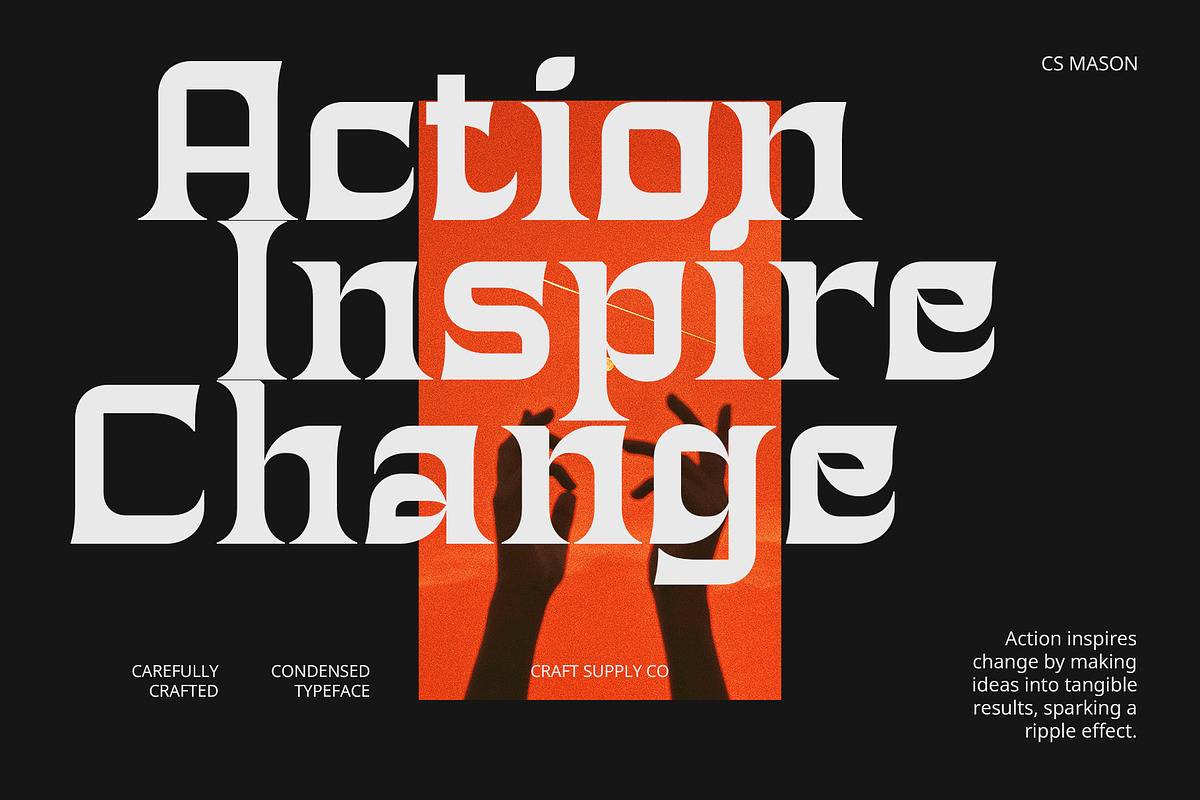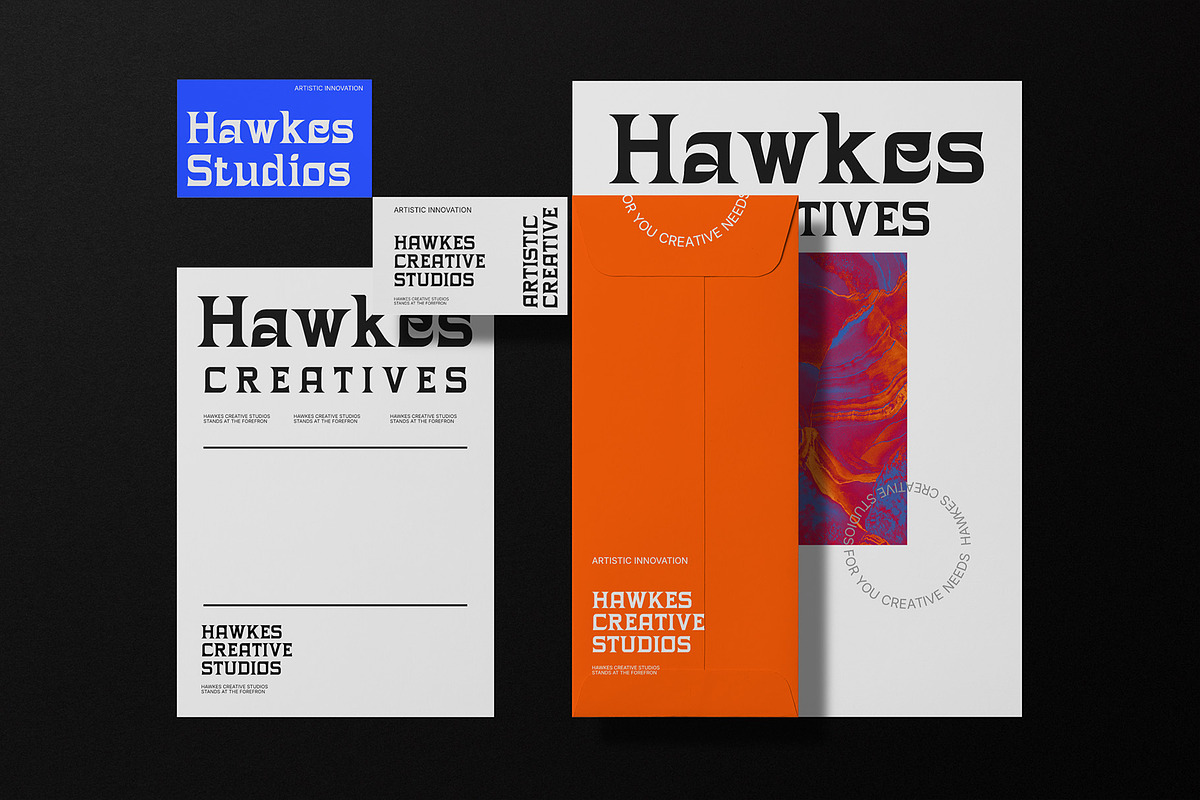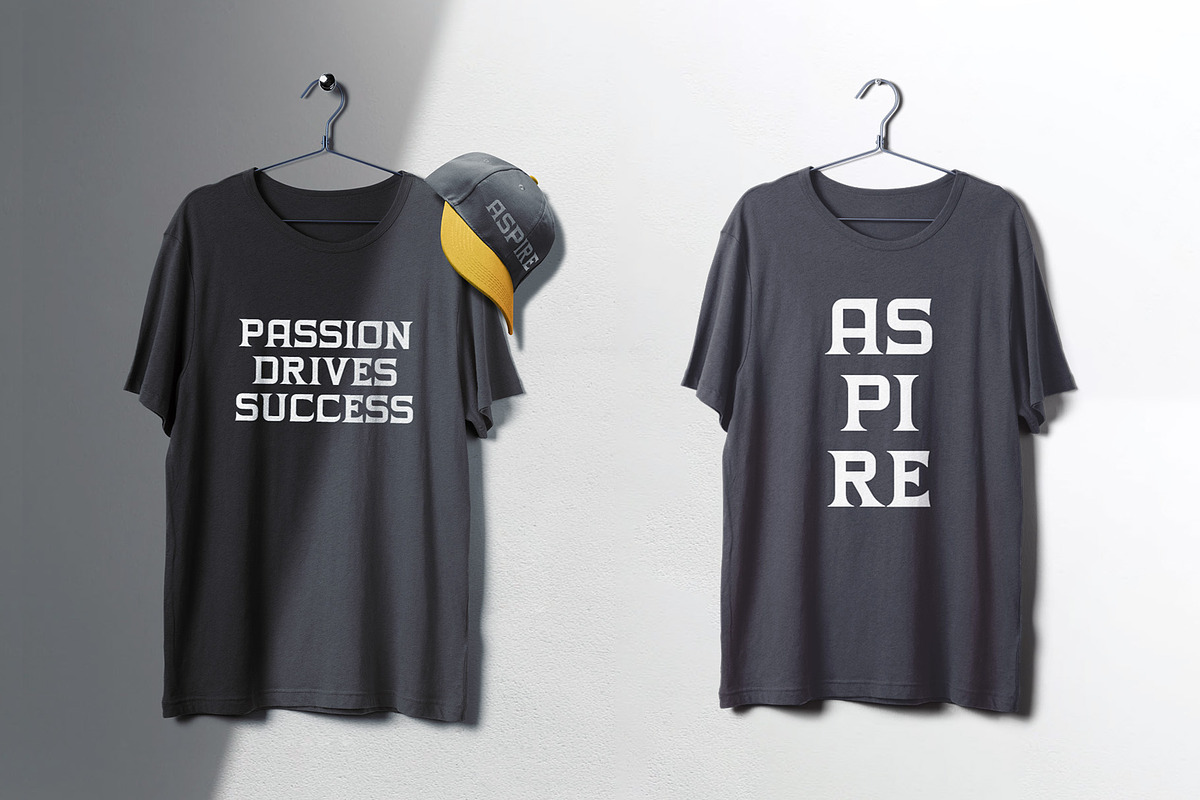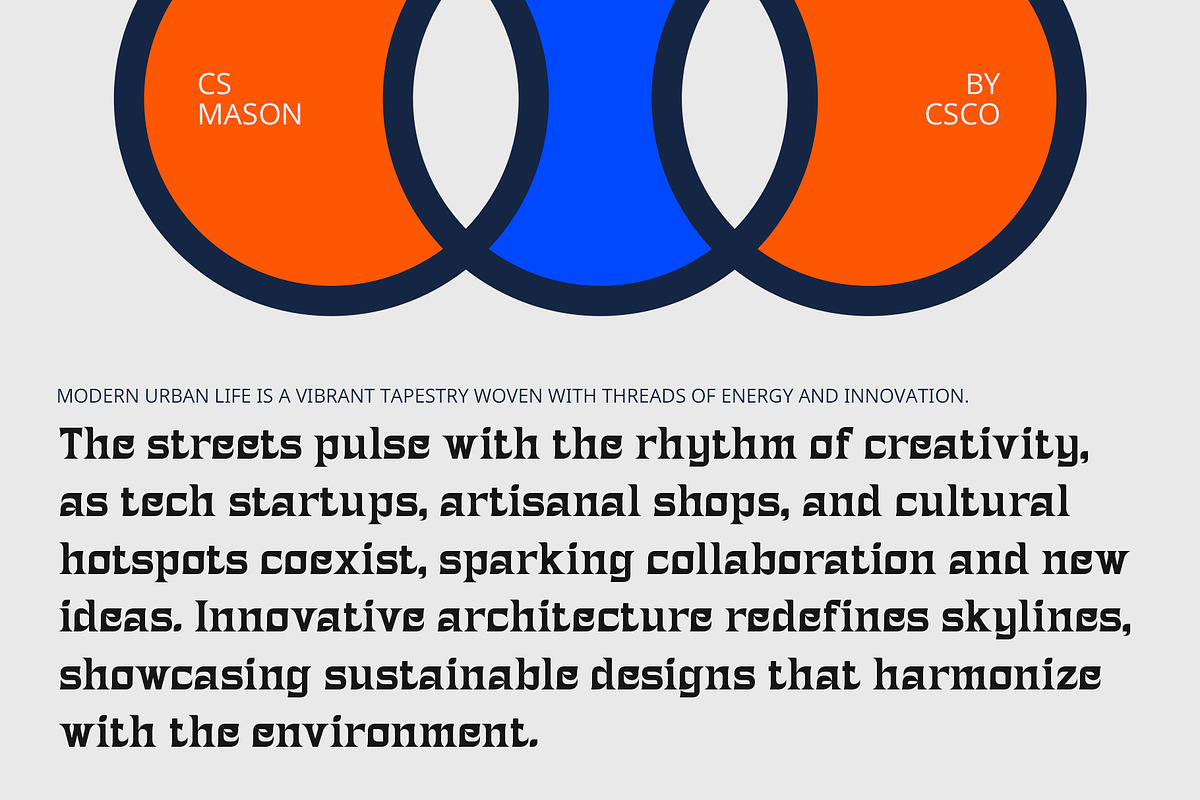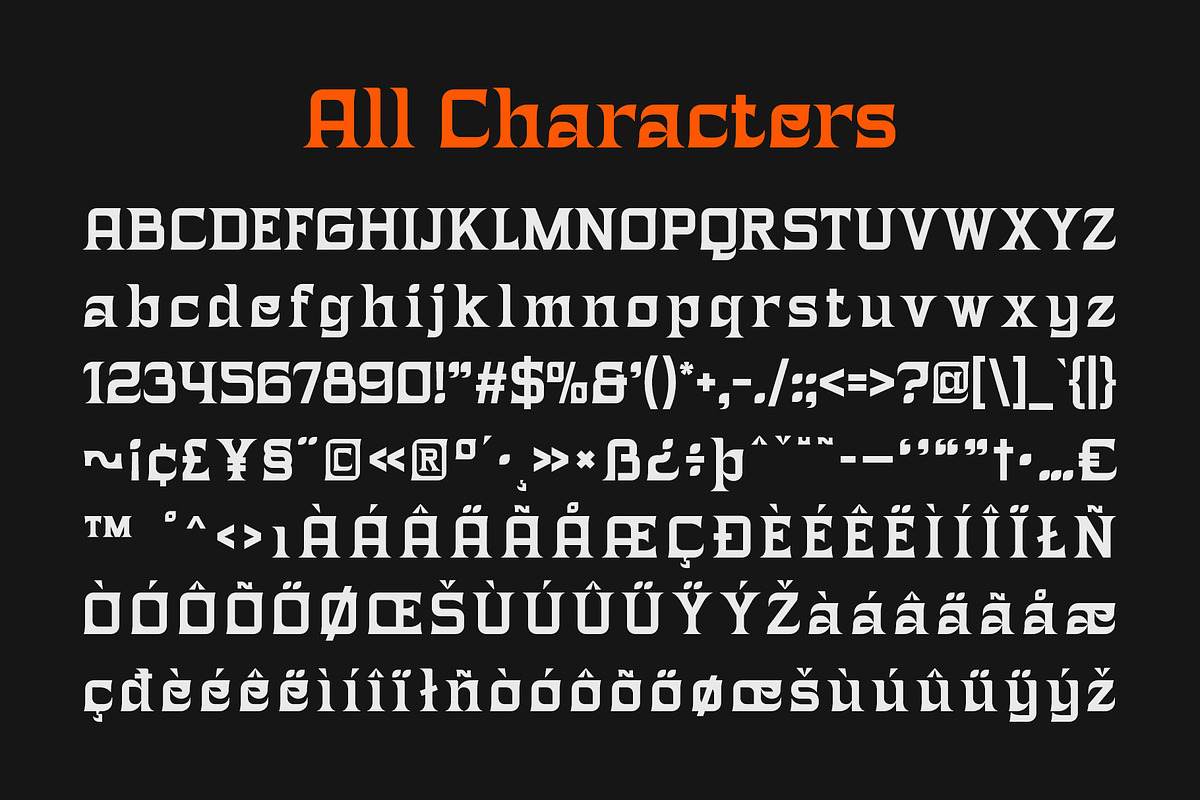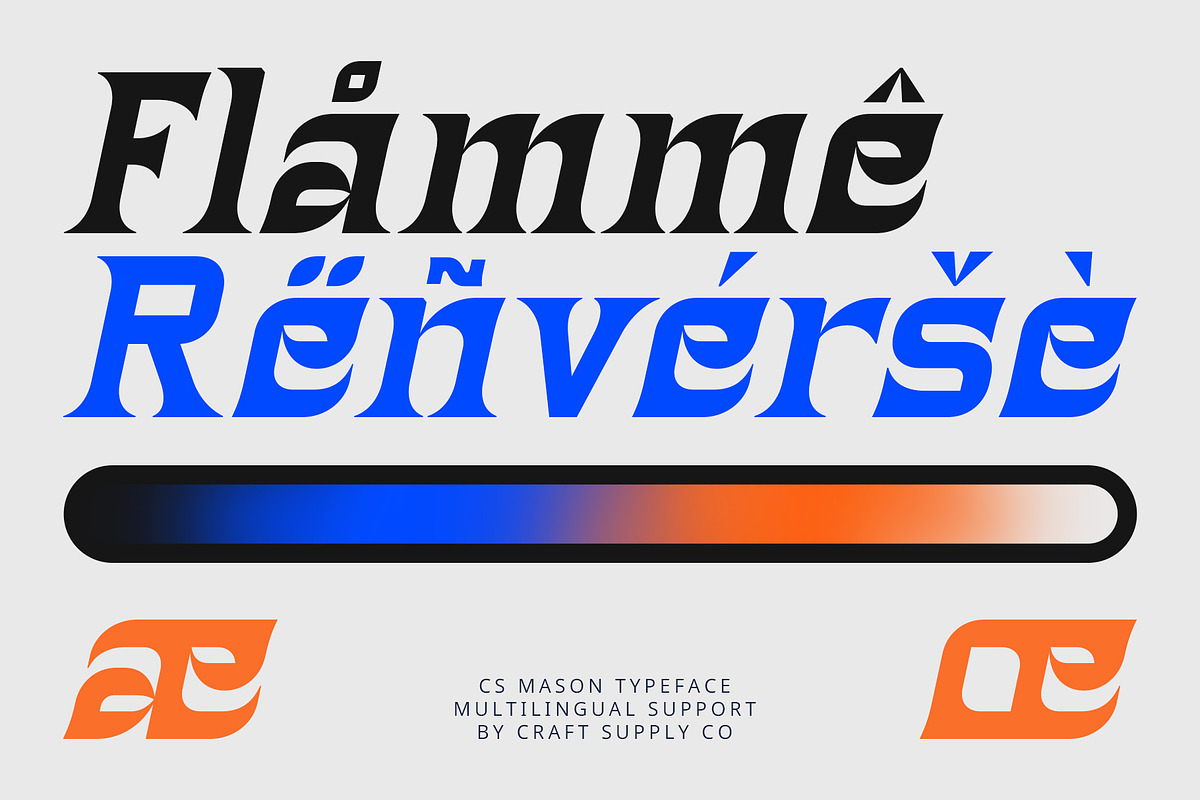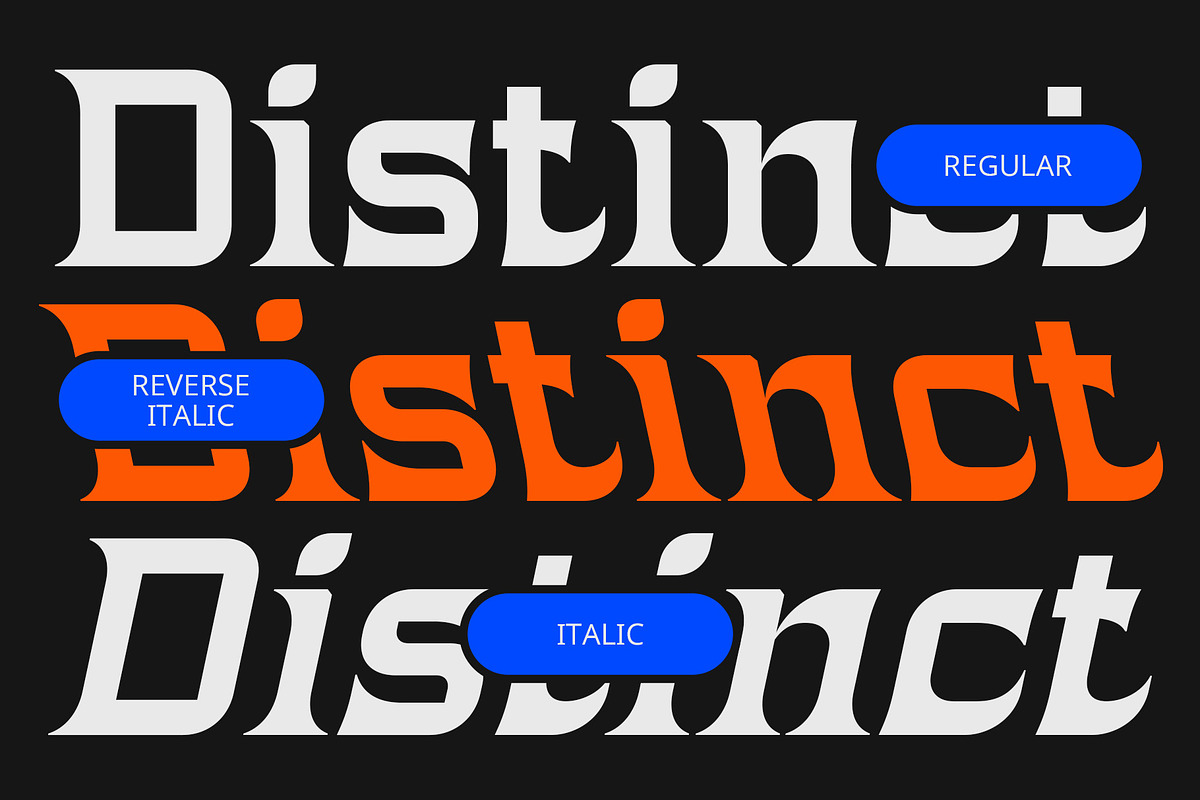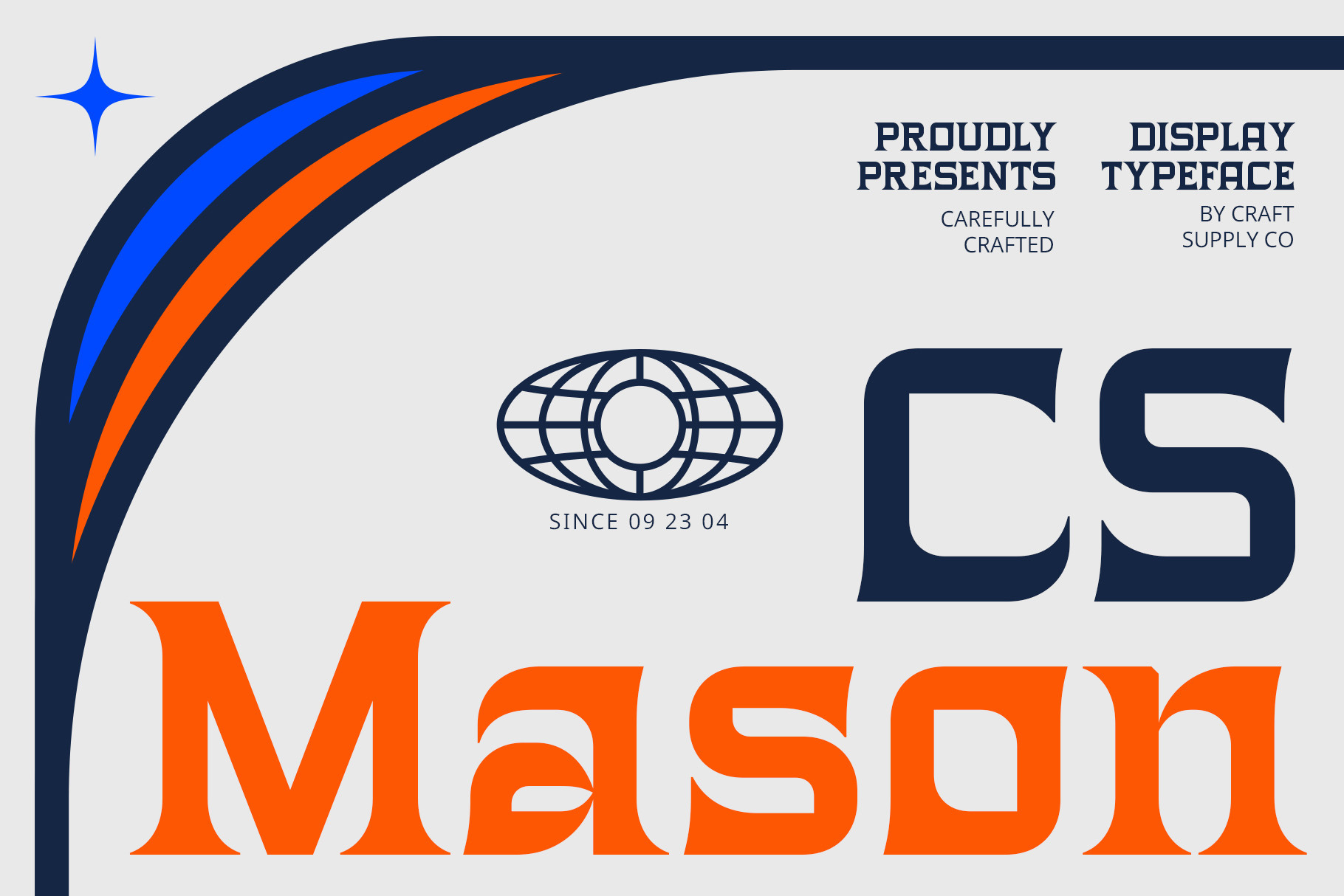
CS Mason – Contemporary Font
CS Mason – Contemporary Font: Elevate Your Design with Modern Elegance
Sleek Modern Serif with Timeless Appeal CS Mason is a modern serif font that exemplifies contemporary design through its clean lines and balanced proportions. This font effortlessly combines elegance and professionalism, making it a perfect choice for projects that demand a refined aesthetic. The minimalist elements of CS Mason enhance readability while still providing a touch of artistic flair, allowing it to stand out in a crowded visual landscape.
Versatile Applications for Modern Design With its versatile design, CS Mason is suitable for a wide array of modern applications. Whether you’re working on branding projects, editorial layouts, or marketing materials, this font conveys a stylish and sophisticated impression that resonates with contemporary audiences. Its adaptability makes it ideal for business cards, websites, product packaging, and more, ensuring that your message is communicated effectively and attractively.
Balanced Design for Enhanced Readability CS Mason’s thoughtful design prioritizes clarity without sacrificing style. The font’s clean lines and well-proportioned characters make it easy to read, even in smaller sizes, ensuring that your text remains legible across various mediums. This balance of readability and elegance makes it an excellent choice for both print and digital platforms, from magazines to mobile applications, effectively engaging readers and enhancing their experience.
- CS Mason Regular
- CS Mason Italic
- CS Mason Reverse Italic